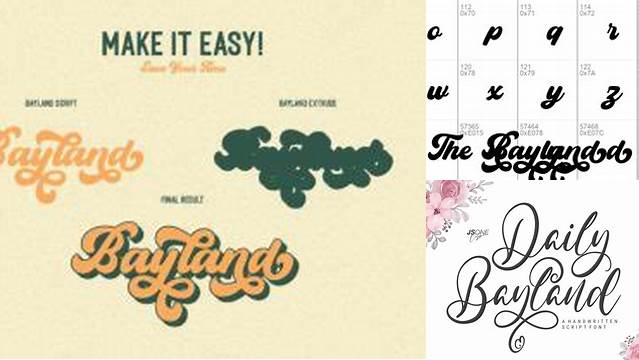
Bayland Font Free Download: A Stylish Typography Guide
Hey guys! Are you on the hunt for a unique and stylish font to elevate your design projects? Look no further! In this article, we're diving deep into the world of The Bayland font, a fantastic typeface that's capturing the attention of designers and creatives alike. We'll explore what makes The Bayland so special, where you can snag it for free download, and how to unleash its potential in your various projects. Whether you're crafting a logo, designing a website, or sprucing up your social media graphics, The Bayland font might just be the missing piece you've been searching for. So, buckle up and let's explore everything The Bayland has to offer! We will talk about its features, legibility, and overall aesthetic, and help you determine if it’s the perfect fit for your creative endeavors. So keep reading to discover all the amazing things about this versatile font!
What Makes The Bayland Font Special?
Okay, so what exactly makes The Bayland font stand out from the crowd? Well, for starters, it's got this really cool, modern vibe that's both eye-catching and versatile. The design incorporates clean lines and a touch of elegance, making it suitable for a wide range of applications. Think about it – you could use it for anything from bold headlines and logos to invitations and branding materials. One of the key highlights of The Bayland is its balanced aesthetic. It manages to be both contemporary and timeless, which is a pretty sweet combination. This means your designs won’t look dated anytime soon, giving them longevity and impact. The font also boasts excellent legibility, which is super important. A font can look beautiful, but if people can't easily read it, it’s not going to be very effective. The Bayland strikes a great balance between style and readability, ensuring your message gets across clearly. Another fantastic feature is its versatility across different media. Whether you're designing for print or digital platforms, The Bayland font holds up beautifully. It's crisp and clear on screens, and it prints wonderfully, making it a reliable choice for all your projects. Plus, many versions of The Bayland come with a variety of weights and styles, such as bold, italic, and light, giving you plenty of options to play with and create visual hierarchy in your designs. This flexibility allows you to use The Bayland in various parts of your project, from headings to body text, while maintaining a cohesive look. All these elements combined make The Bayland font a top choice for designers looking to add a touch of modern sophistication to their work. It’s a font that doesn’t just look good; it works well in a variety of contexts, ensuring your designs are both beautiful and functional.
Creative Ways to Use The Bayland Font
So, you've got The Bayland font downloaded and ready to go – awesome! Now, let's talk about some creative ways you can put this stylish typeface to work. The Bayland font is incredibly versatile, which means it can shine in a wide range of design applications. Let's dive into some specific ideas to get your creative juices flowing. First up, think about using The Bayland for branding. A strong, recognizable brand starts with a great logo, and typography plays a huge role in that. The Bayland's modern and elegant feel makes it perfect for creating a logo that stands out. Whether you're designing for a tech startup, a fashion boutique, or a creative agency, The Bayland can add a touch of sophistication and professionalism. Beyond logos, consider using The Bayland font across all your branding materials, such as business cards, letterheads, and marketing collateral. Consistency in typography helps build brand recognition, and The Bayland can help you achieve a cohesive and polished look. Next, let's talk about website design. The Bayland works beautifully for both headlines and body text on websites. Its excellent legibility ensures that your content is easy to read, while its stylish appearance adds visual interest. Using The Bayland for your website's headings can create a strong first impression, while using it for body text ensures a smooth and enjoyable reading experience for your visitors. Don't forget about social media graphics! In the fast-paced world of social media, eye-catching visuals are essential for grabbing attention. The Bayland font can help your posts stand out from the crowd. Use it to create engaging graphics, quotes, and promotional materials that reflect your brand's personality. The font's modern aesthetic is perfect for creating content that looks fresh and on-trend. If you're working on print projects, The Bayland is a fantastic choice for things like posters, flyers, and brochures. Its clean lines and elegant design make it ideal for conveying important information in a visually appealing way. Consider using The Bayland for event invitations, menus, and even book covers. The font's versatility allows it to adapt to a variety of print applications. Lastly, think about using The Bayland font for personal projects. Whether you're creating a resume, designing a birthday card, or working on a school project, The Bayland can add a touch of style and professionalism. It's a great font to have in your toolkit for any design need that comes your way. By exploring these creative uses, you'll see just how valuable The Bayland font can be in your design work. It’s a versatile typeface that can elevate your projects and help you achieve a polished, professional look.
Tips for Working with The Bayland Font
Okay, so you're ready to start using The Bayland font in your projects – that's fantastic! But before you dive in headfirst, let’s chat about some tips and tricks that will help you make the most of this awesome typeface. Using a font effectively is about more than just picking something that looks good; it’s about understanding how to integrate it seamlessly into your design for the best possible impact. First up, let's talk about pairing The Bayland with other fonts. While The Bayland is versatile enough to stand on its own, pairing it with complementary fonts can add depth and visual interest to your designs. A good rule of thumb is to pair a sans-serif font like The Bayland with a serif font for body text, or vice versa. This creates a nice contrast that's pleasing to the eye. Some popular serif fonts that pair well with The Bayland include Times New Roman, Georgia, and Baskerville. For sans-serif options, consider using Helvetica, Arial, or Open Sans. Experiment with different combinations to find what works best for your project, but always aim for a balance between contrast and harmony. Next, think about font size and hierarchy. The Bayland works beautifully for headlines, but you'll want to adjust the font size to create a clear visual hierarchy on your page. Use larger font sizes for headings and subheadings, and smaller sizes for body text. This helps guide the reader's eye and makes your content more scannable. Also, pay attention to line height and letter spacing. Proper spacing can significantly improve legibility, especially for longer blocks of text. A good line height (the vertical space between lines) makes the text easier to read, while adjusting letter spacing (the space between individual letters) can prevent the text from looking too cramped or too sparse. When using The Bayland for logos or branding materials, consider the font weight. The Bayland often comes in different weights, such as light, regular, and bold. The weight you choose can impact the overall feel of your design. A bold weight can convey strength and confidence, while a lighter weight might feel more elegant and refined. Choose the weight that best aligns with your brand's personality and message. Another important tip is to avoid overusing The Bayland. While it’s a fantastic font, using it for every single element in your design can make things feel a bit monotonous. Mix it up by using The Bayland for headings and key elements, and then incorporate other fonts for body text or secondary elements. This adds variety and keeps your design looking fresh and engaging. Finally, always test your font choices across different devices and platforms. What looks great on your computer screen might not look as good on a mobile device or in print. Before finalizing your design, take the time to preview it in different formats to ensure everything looks crisp and clear. By keeping these tips in mind, you’ll be able to wield The Bayland font like a pro and create designs that are both stylish and effective.
So, there you have it, guys! We've taken a comprehensive look at The Bayland font, exploring its unique qualities, where to find it for free download, and how to use it creatively in your design projects. The Bayland font is truly a gem in the world of typography, offering a blend of modernity, elegance, and versatility that makes it suitable for a wide range of applications. Whether you're designing a logo, crafting a website, or sprucing up your social media graphics, The Bayland can help you achieve a polished, professional look. Its clean lines and balanced aesthetic make it a joy to work with, and its excellent legibility ensures that your message gets across clearly. Remember, typography is a crucial element of design, and choosing the right font can make all the difference. The Bayland font is a fantastic option for designers looking to add a touch of sophistication to their work while maintaining a modern edge. With its availability for free download on various platforms, it's accessible to both seasoned professionals and budding creatives alike. We've also discussed some essential tips for working with The Bayland font, such as pairing it with complementary typefaces, adjusting font sizes and hierarchy, and testing your designs across different devices. By keeping these guidelines in mind, you can ensure that you're using The Bayland to its full potential and creating designs that truly shine. Ultimately, The Bayland font is more than just a typeface; it's a tool that can help you communicate your message effectively and make a lasting impression. So go ahead, download The Bayland, experiment with its various styles and weights, and unleash your creativity. You might just find that it becomes your new go-to font for all your design endeavors. Happy designing, and may your projects always be stylish and impactful!